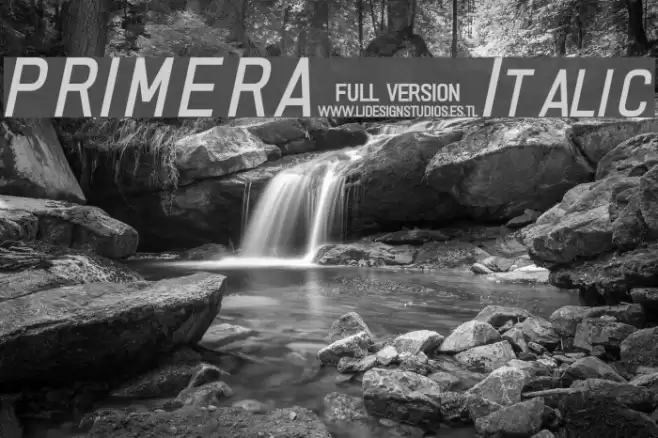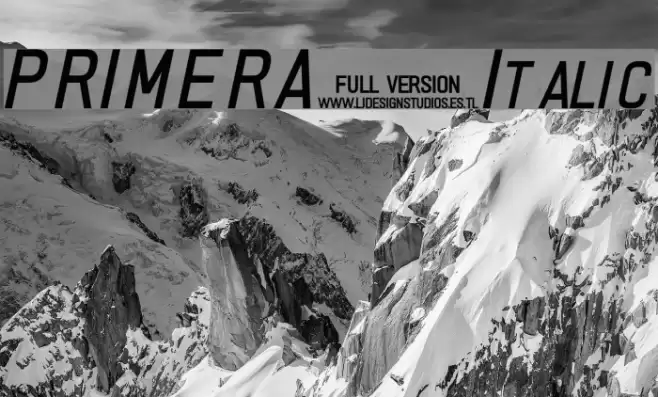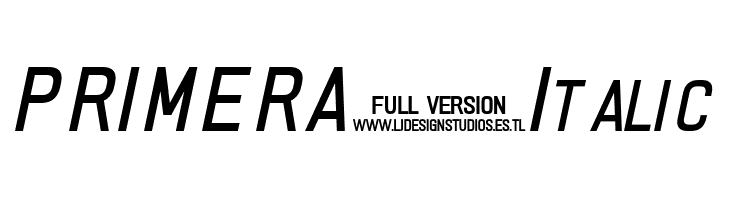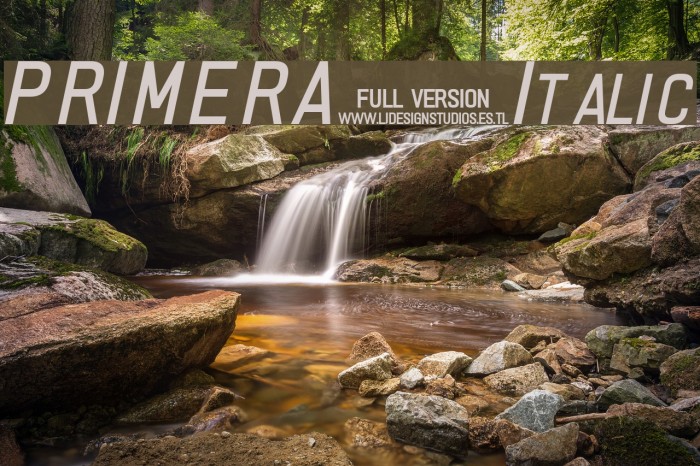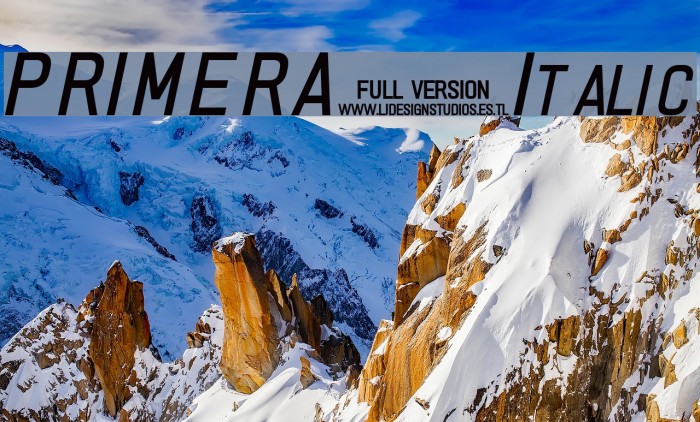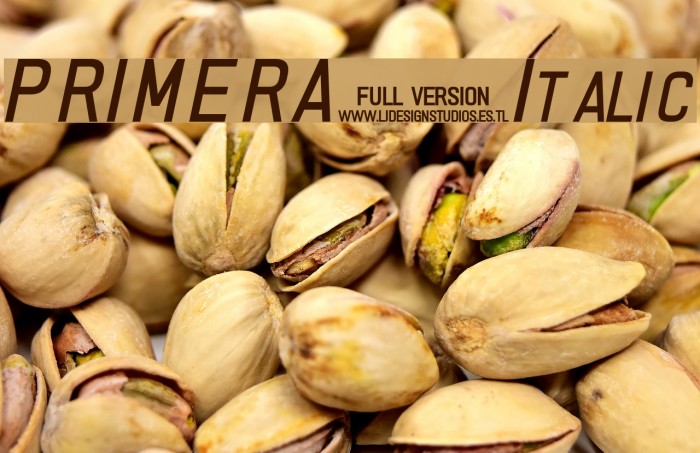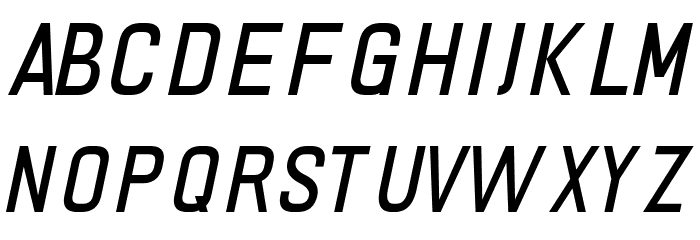
PRIMERA Italic Font
PRIMERA Italic Description
This font features a sleek and modern italic style, characterized by its slanted letters that convey a sense of motion and dynamism. The uppercase letters are bold and slightly condensed, offering a strong presence on the page. The strokes are consistent in width, providing a uniform appearance that enhances readability. The font's clean lines and geometric shapes make it suitable for contemporary designs. It maintains a professional and polished look, ideal for various applications where clarity and style are paramount.
A modern italic font with bold, slightly condensed uppercase letters and consistent stroke width from Uncategorized fonts.
- Proposed Projects: Ideal for branding projects, modern advertising, digital media, and editorial design where a contemporary and dynamic appearance is desired.
- Use Case: Headlines, Logos, Branding